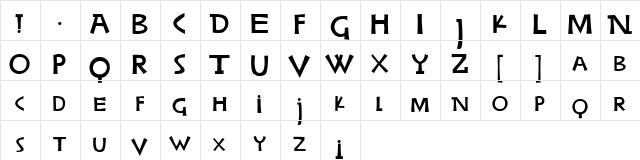
Woodring Bold
Design Context for Woodring Typeface
Woodring echoes the hand-painted signage and woodblock typography of the American frontier, with a warm, rugged personality. Its bold stroke weight gives it real presence on the page.
A natural fit for craft spirits, ranch branding, rodeo events, and Americana-inspired design work.
Font Pairing: Combine Woodring with a simple slab or neutral sans — period-accurate companions reinforce the vintage feel without competing for attention.
Pro Tip: Use Woodring for short, impactful bursts of text — it shines in poster headlines and product names rather than extended copy.